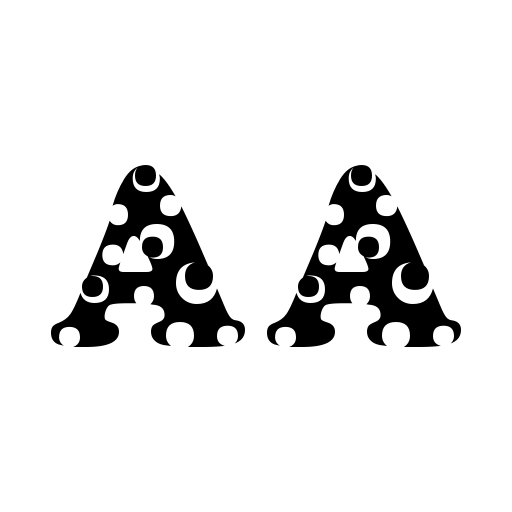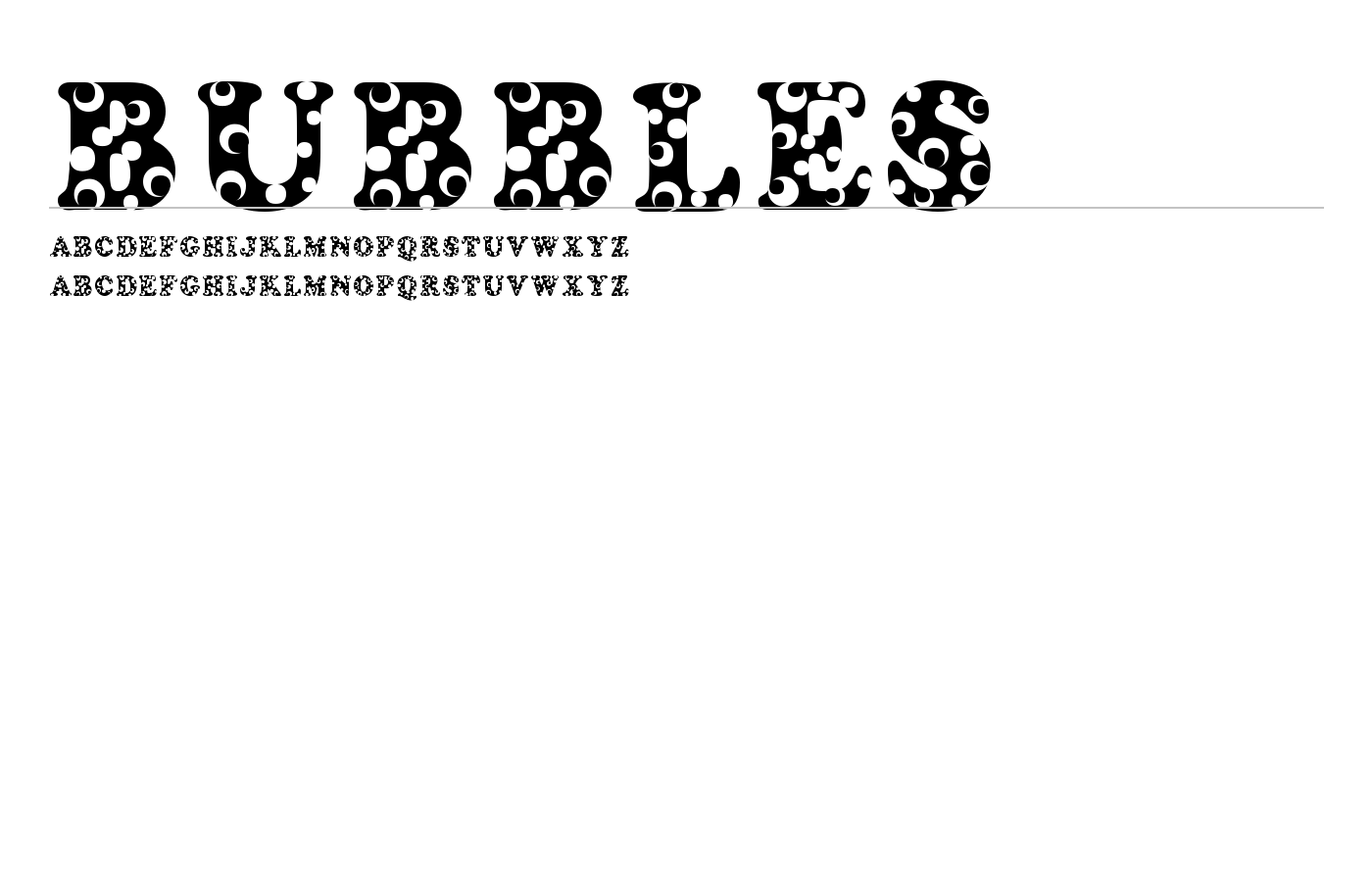
Bubbles Font is a playful and bold display typeface featuring heavy, rounded serif letters filled with a lively pattern of circular bubbles. Its thick strokes and decorative texture give it a whimsical, fun vibe, perfect for eye-catching headlines, party invitations, and youthful branding where a lively and informal personality is desired. This font works best where a strong visual impact and sense of joy are needed, making it less suited for body text but ideal for creative and festive designs.
Bubbles Font